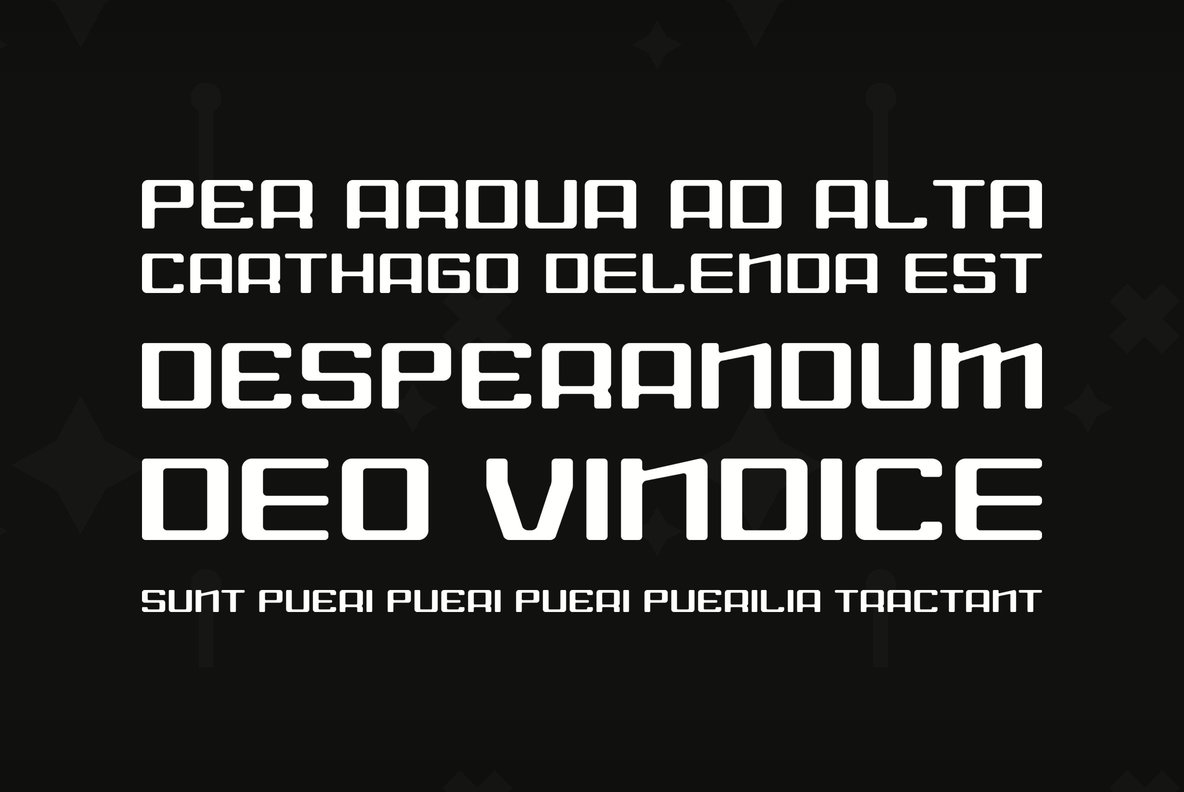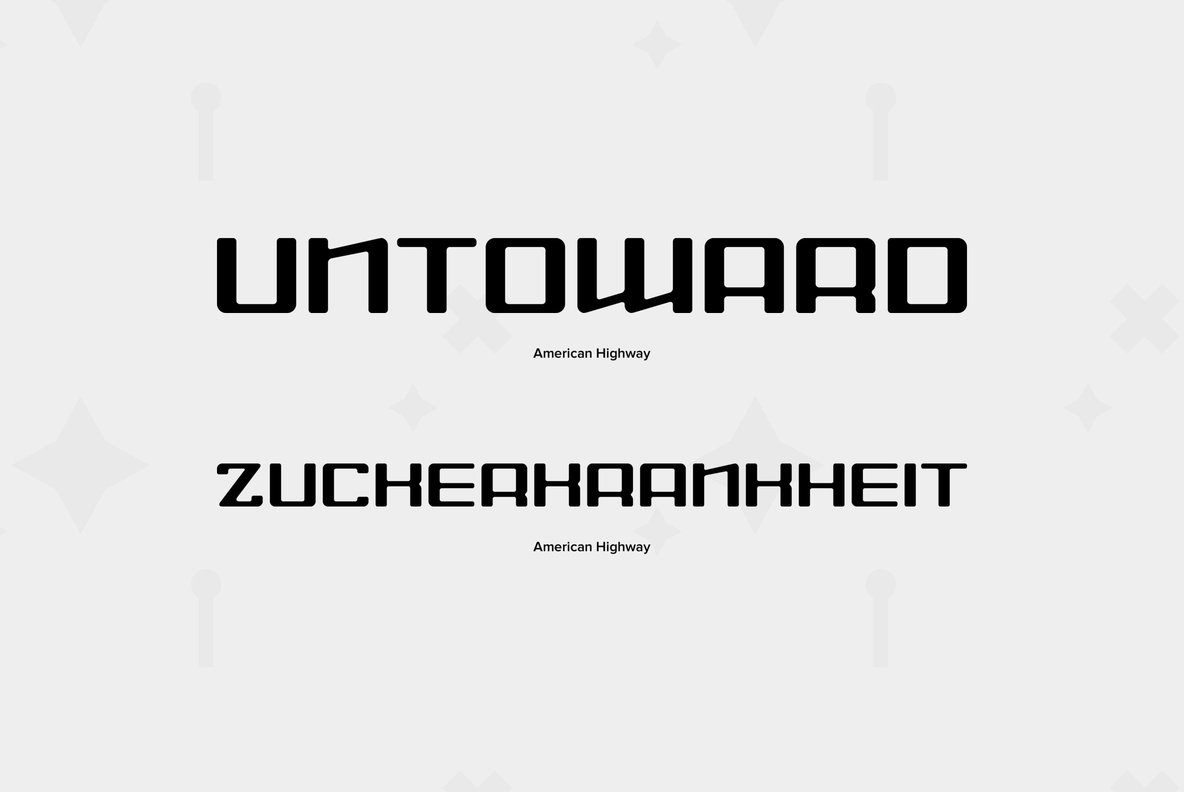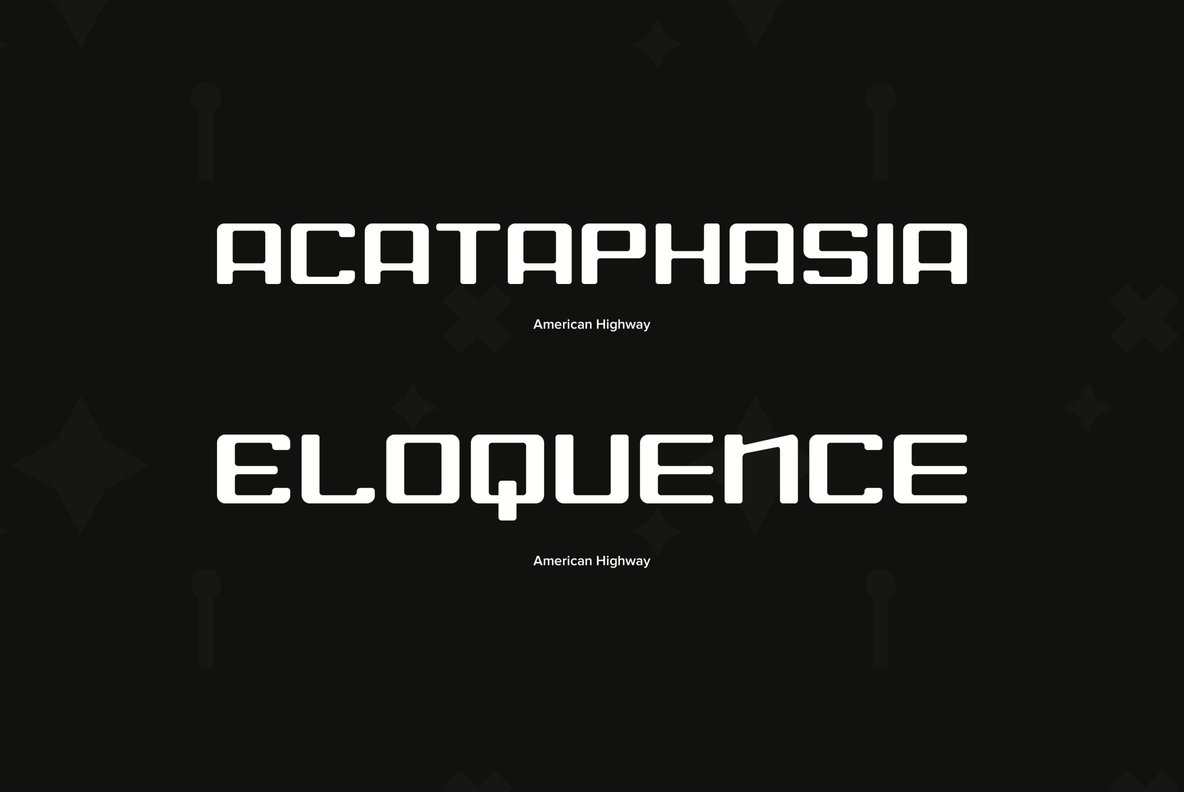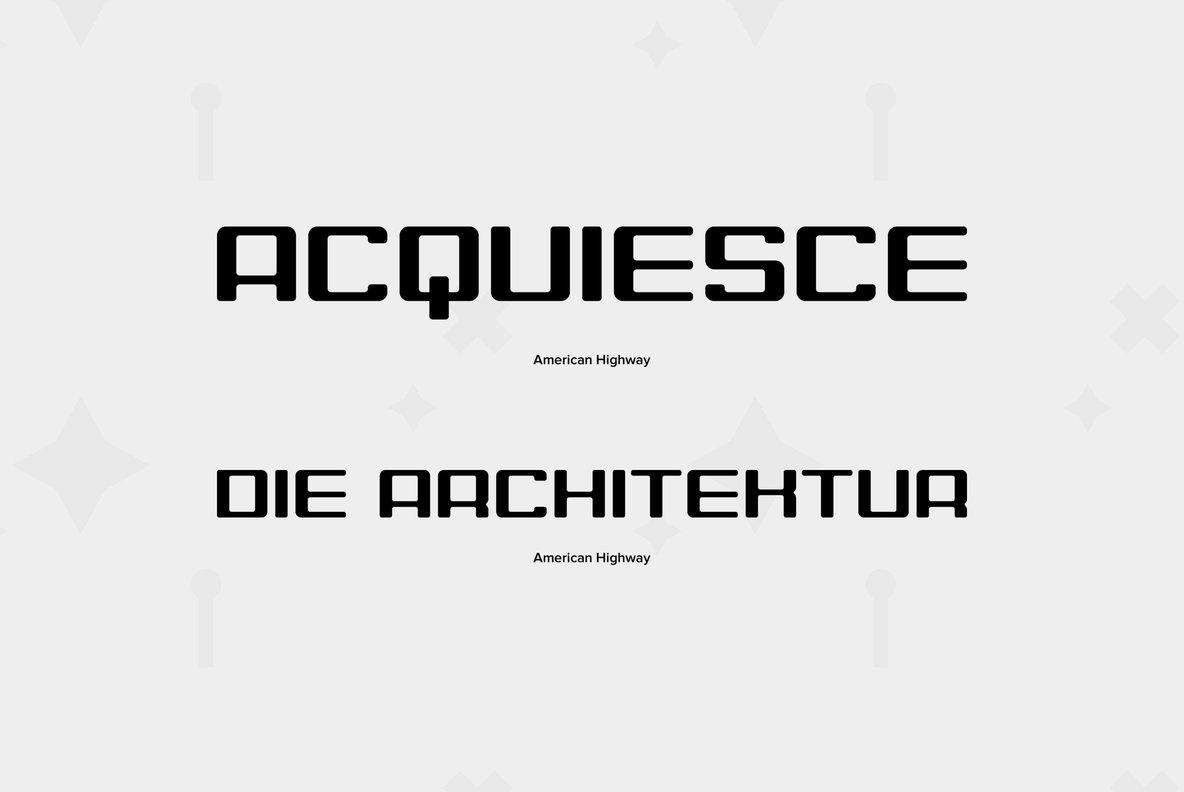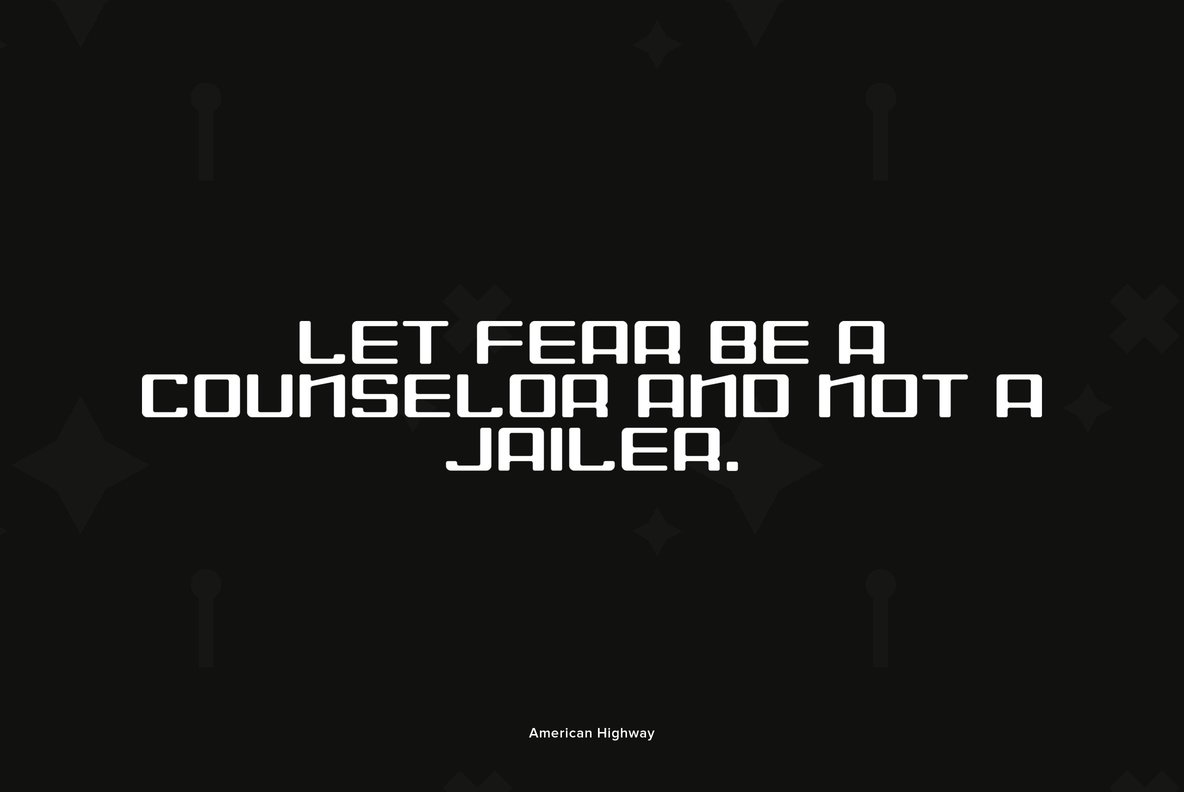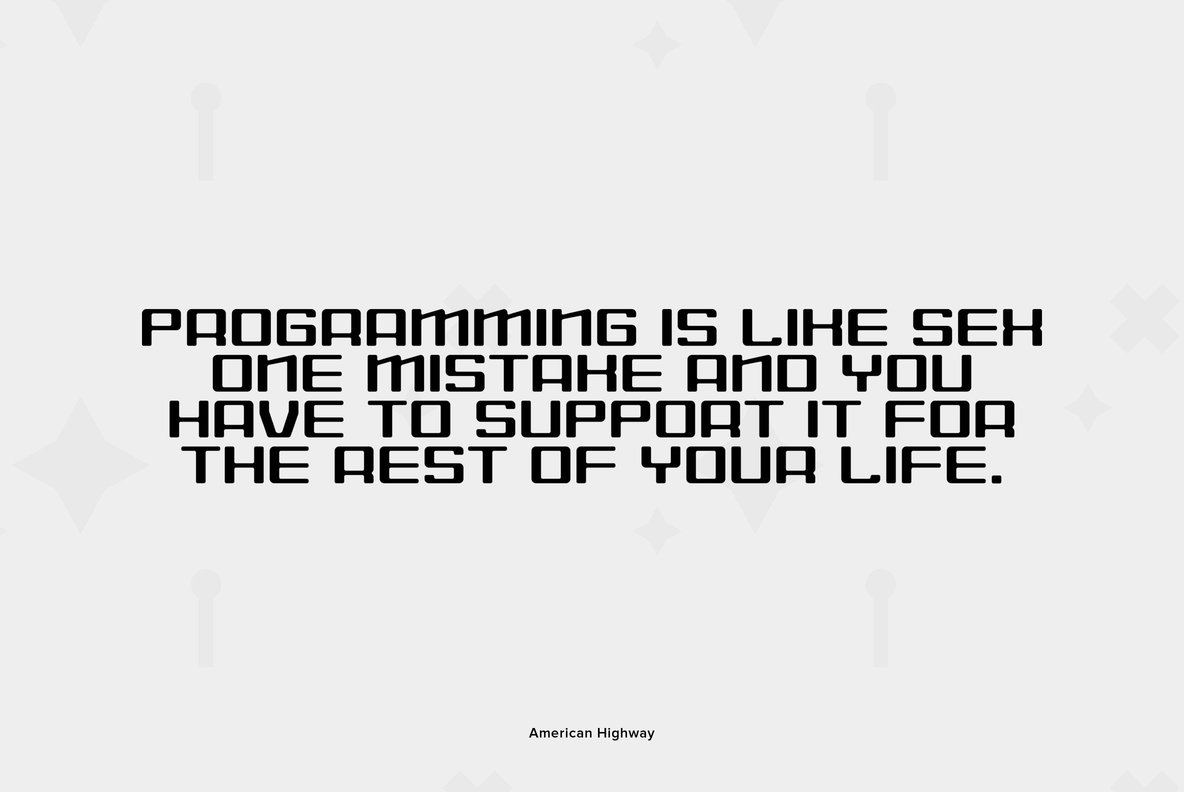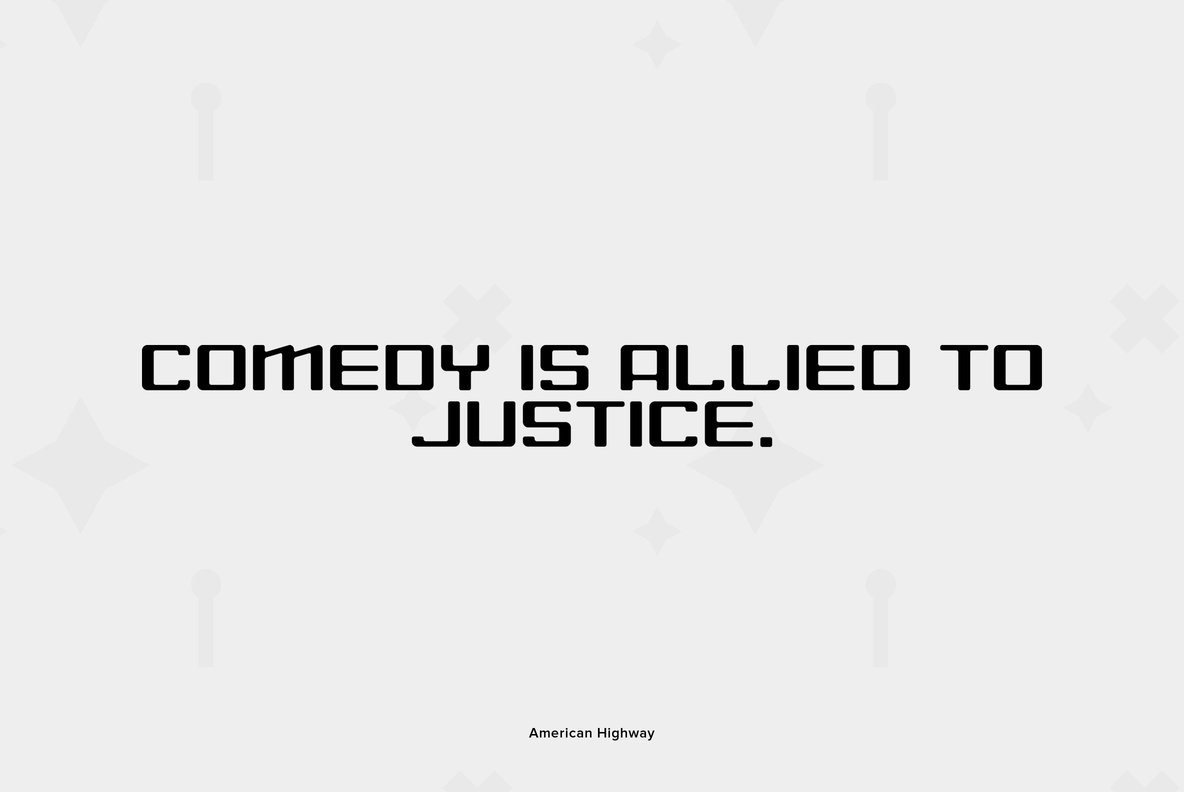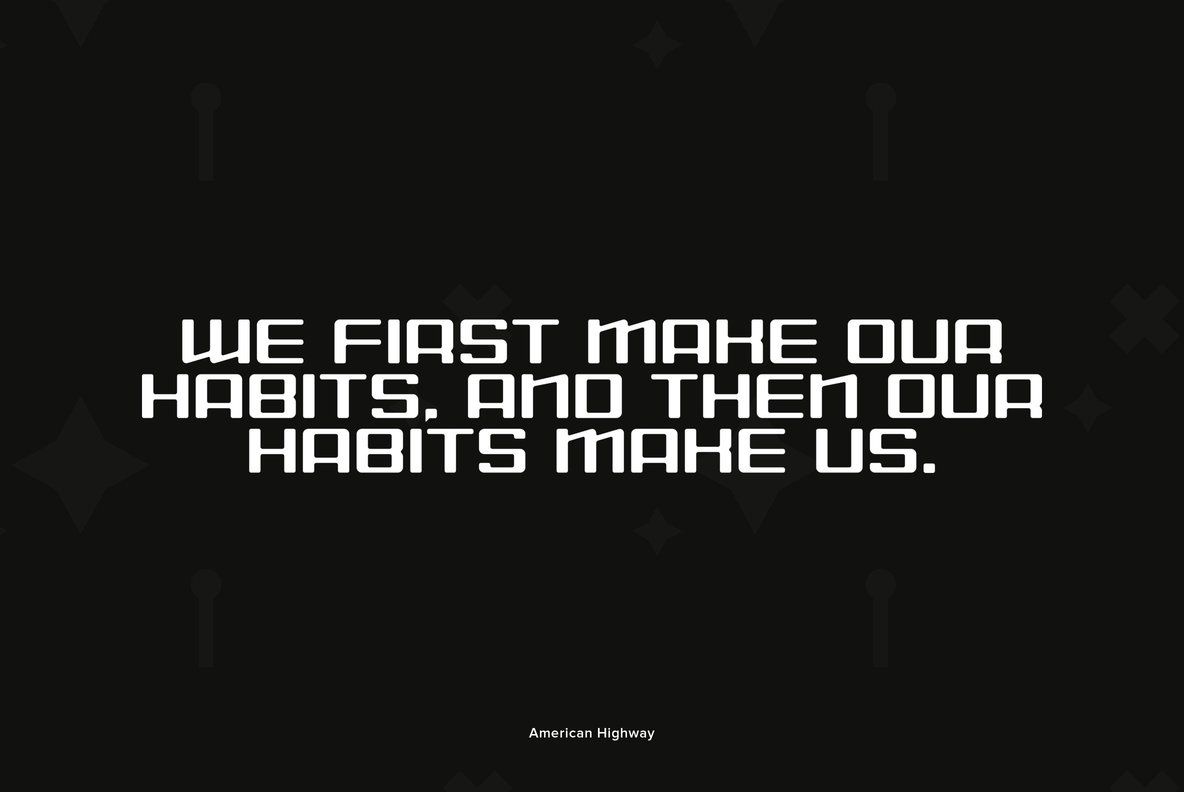
American Highway
Foundry: Font Diner
You can smell the chrome coming through this Art Deco inspired sans-serif, a tribute to industrial machines and American sweat!